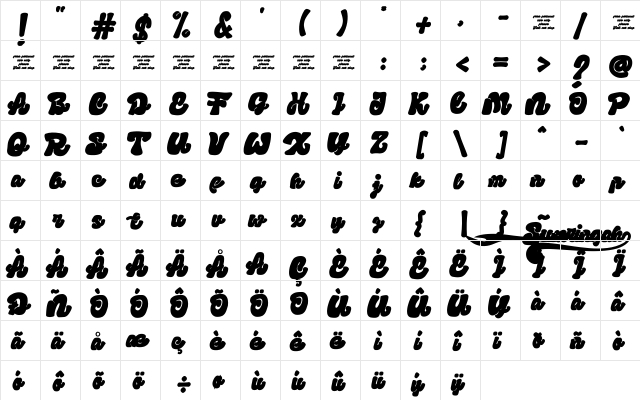
Sumringah freepersonal
| Designer | Designed by Em Ali From Mozyen Studio |
Design Context for Sumringah Typeface
Sumringah is a composed and adaptable typeface that performs quietly and consistently across a wide range of design contexts.